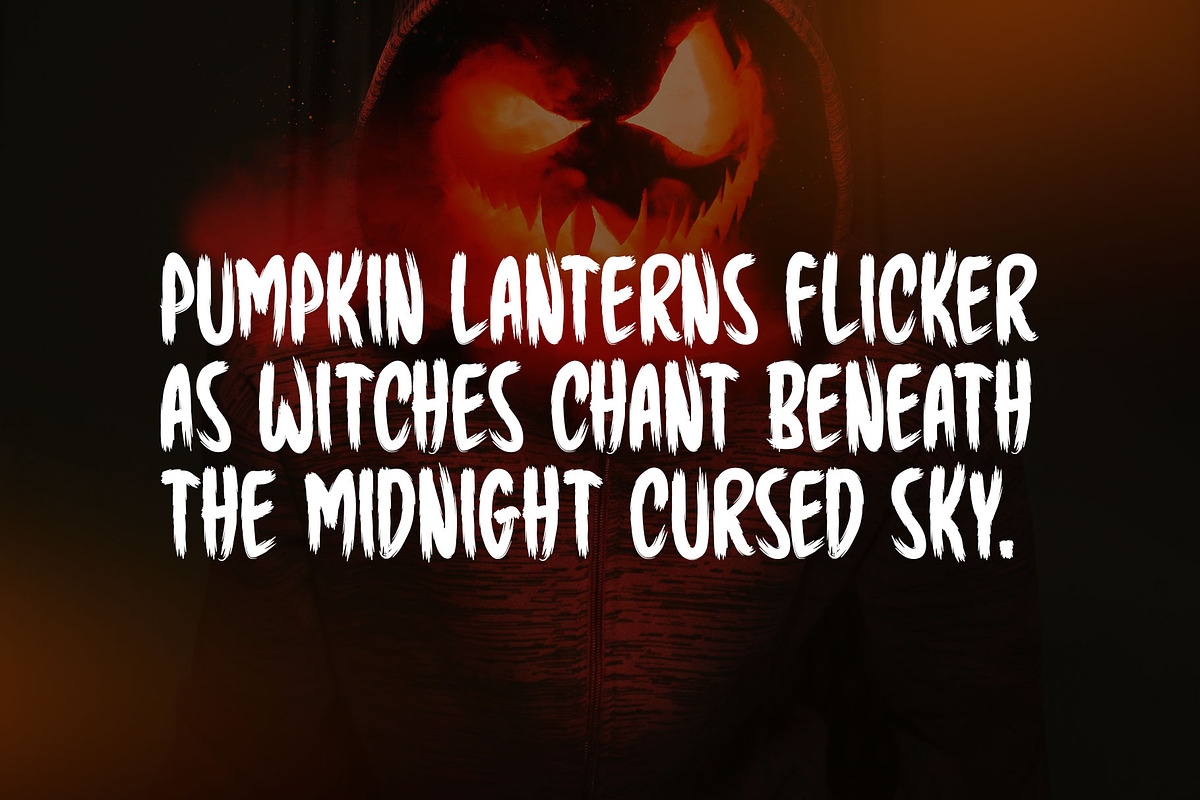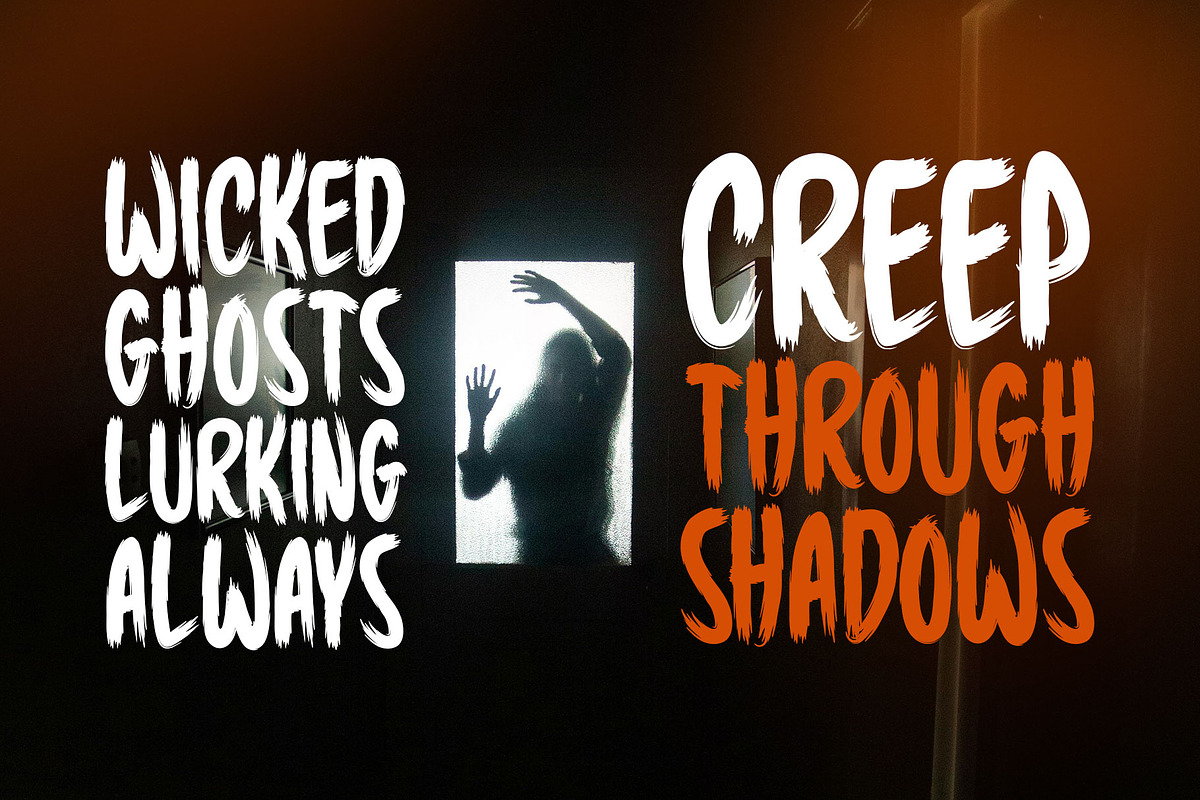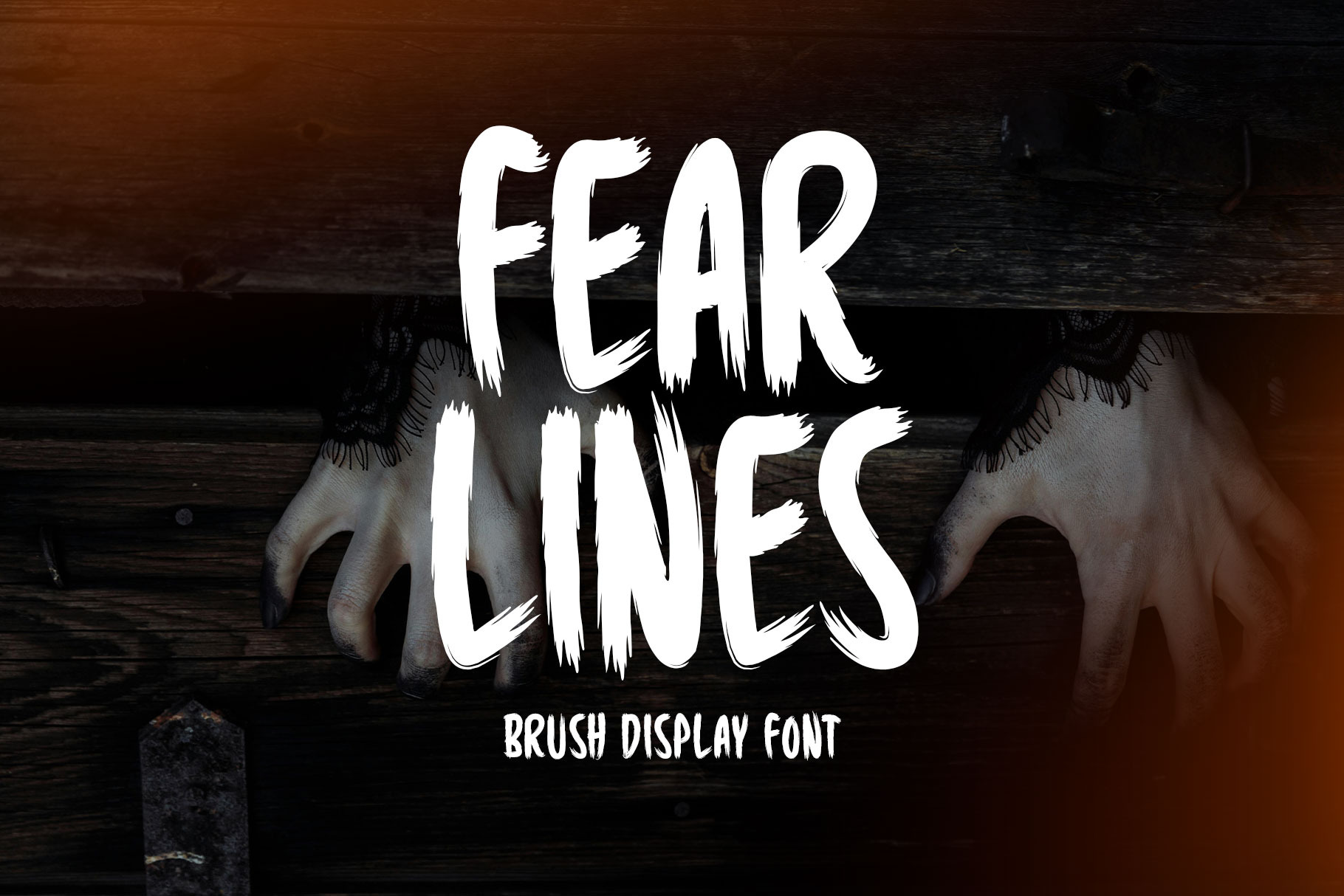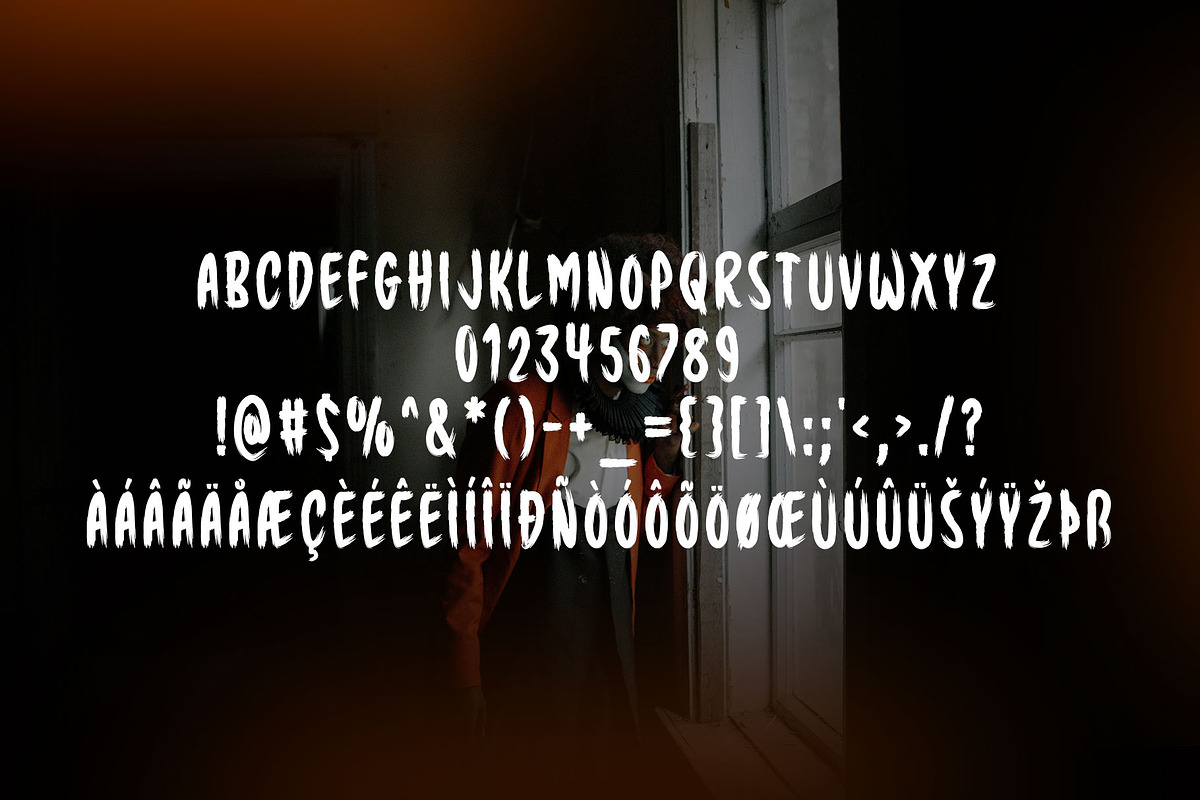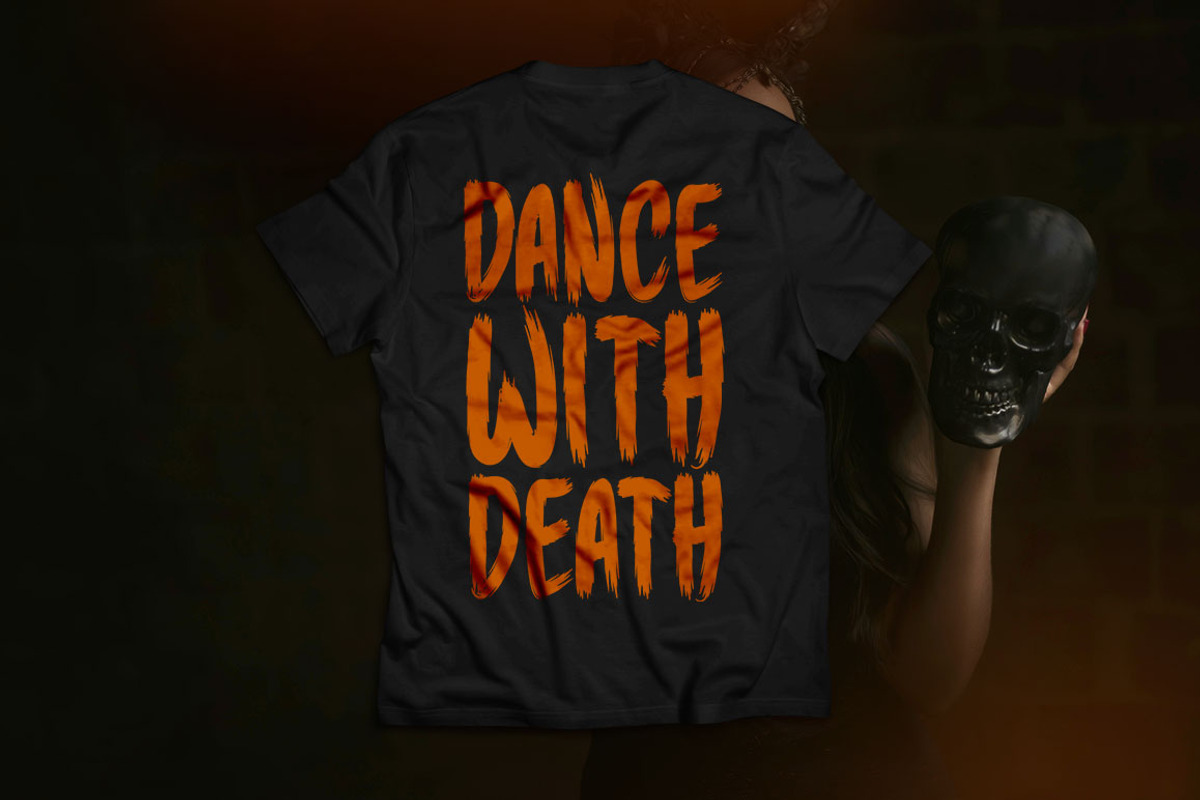
Fear Lines Typeface
Introducing Fear Lines!
Fear Lines is a striking brush display typeface with an expressive, handcrafted look. Ideal for both digital and print applications, it’s well-suited for stationery, apparel, music artwork, posters, web graphics, photo frames, and more. Its bold strokes and textured style make it a go-to choice for designs that need an artistic, impactful touch.
Includes a range of multilingual support